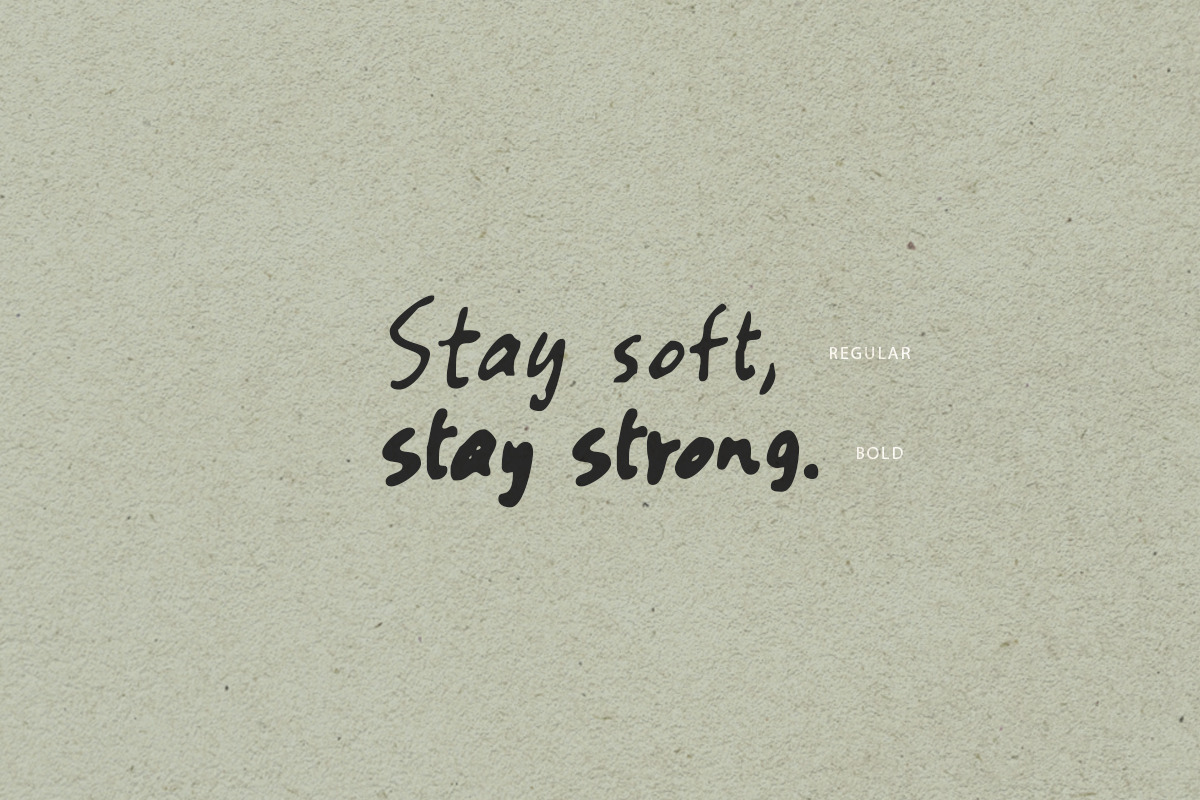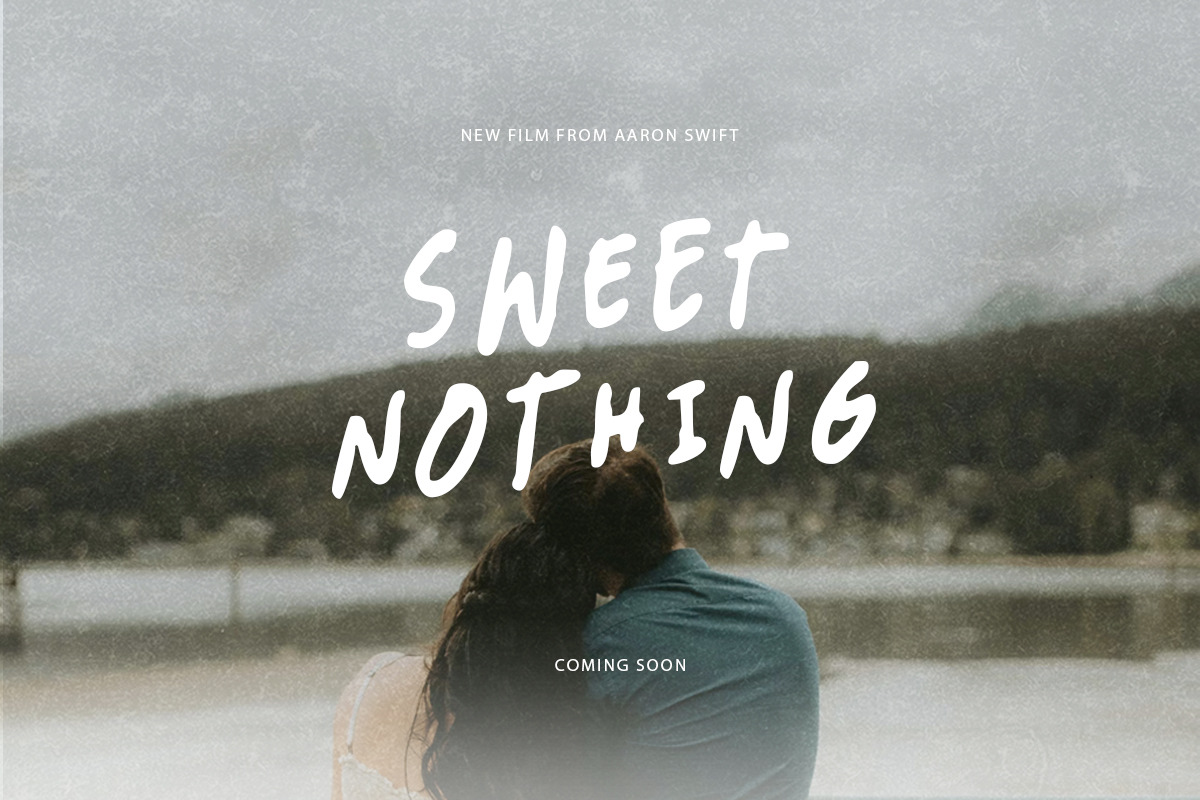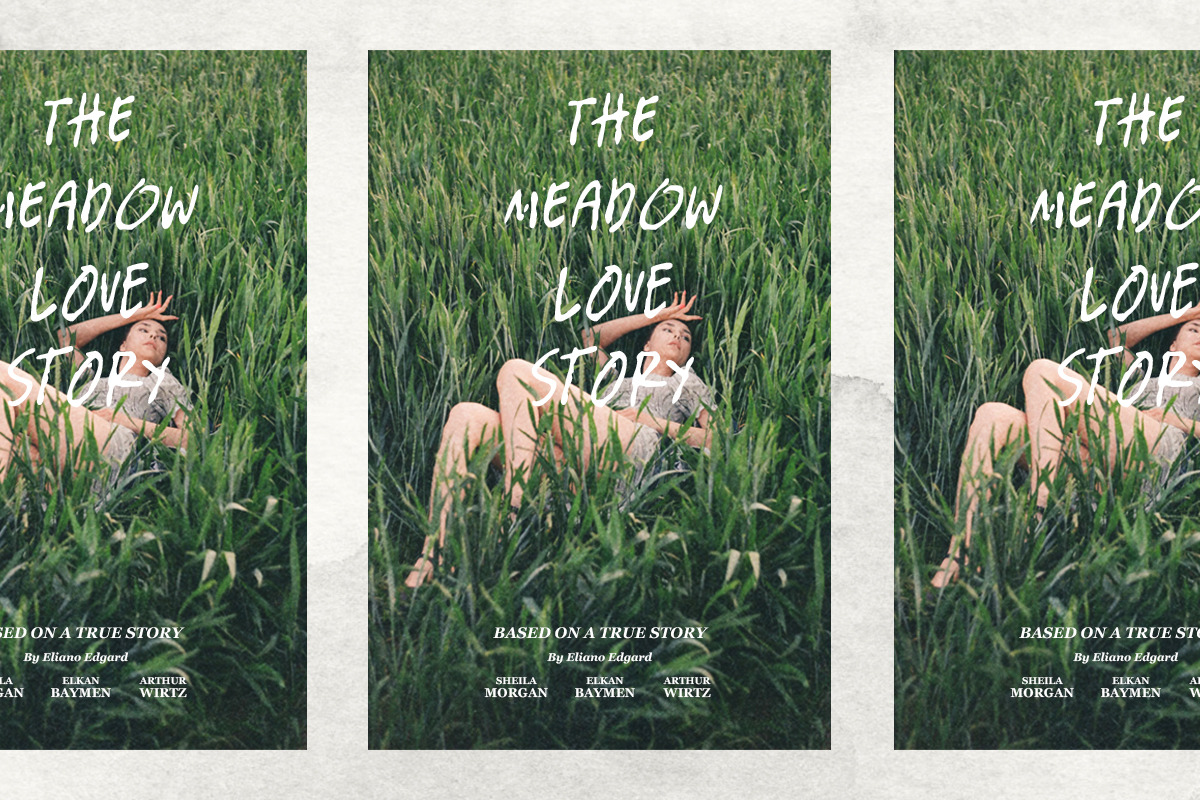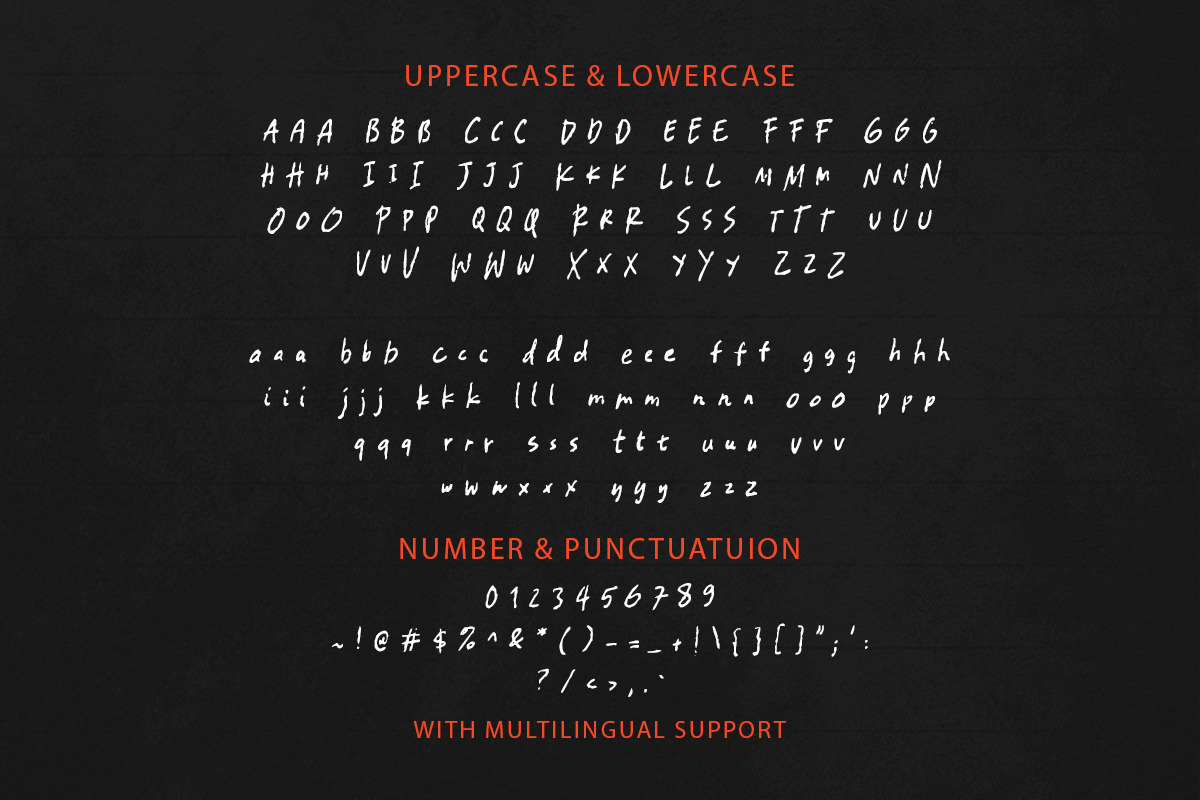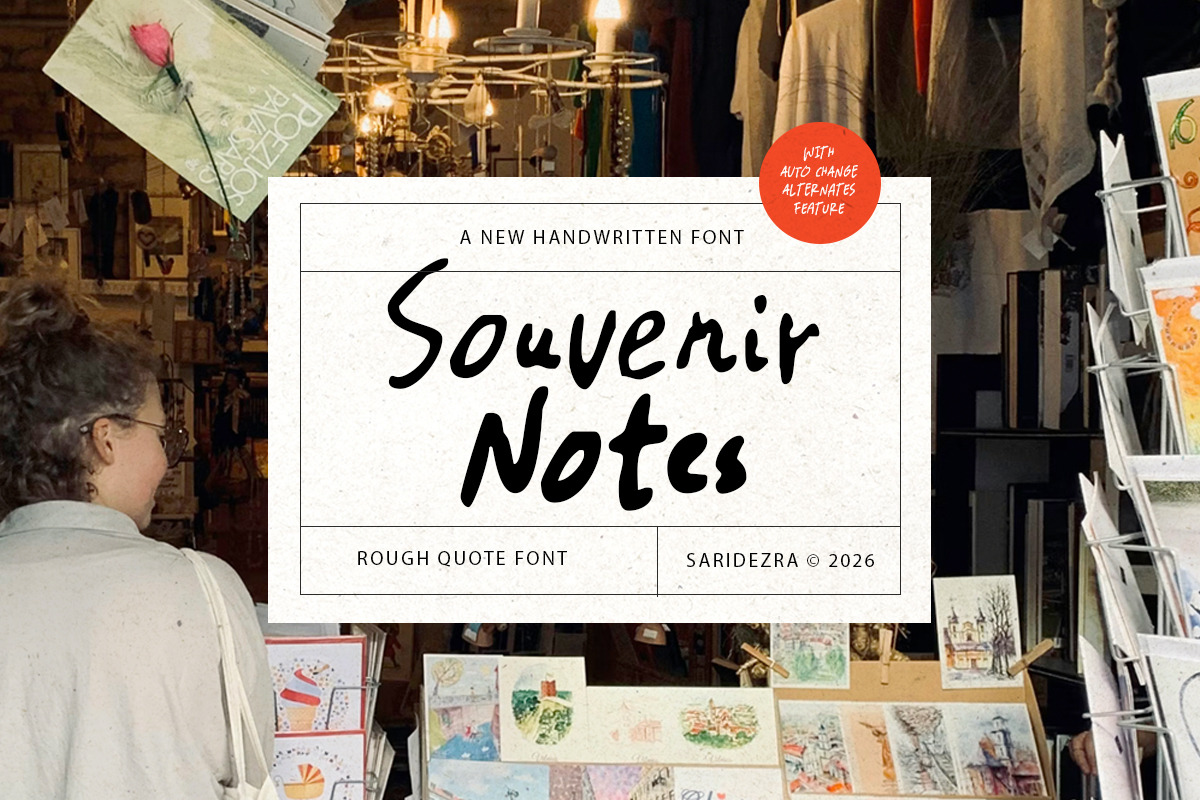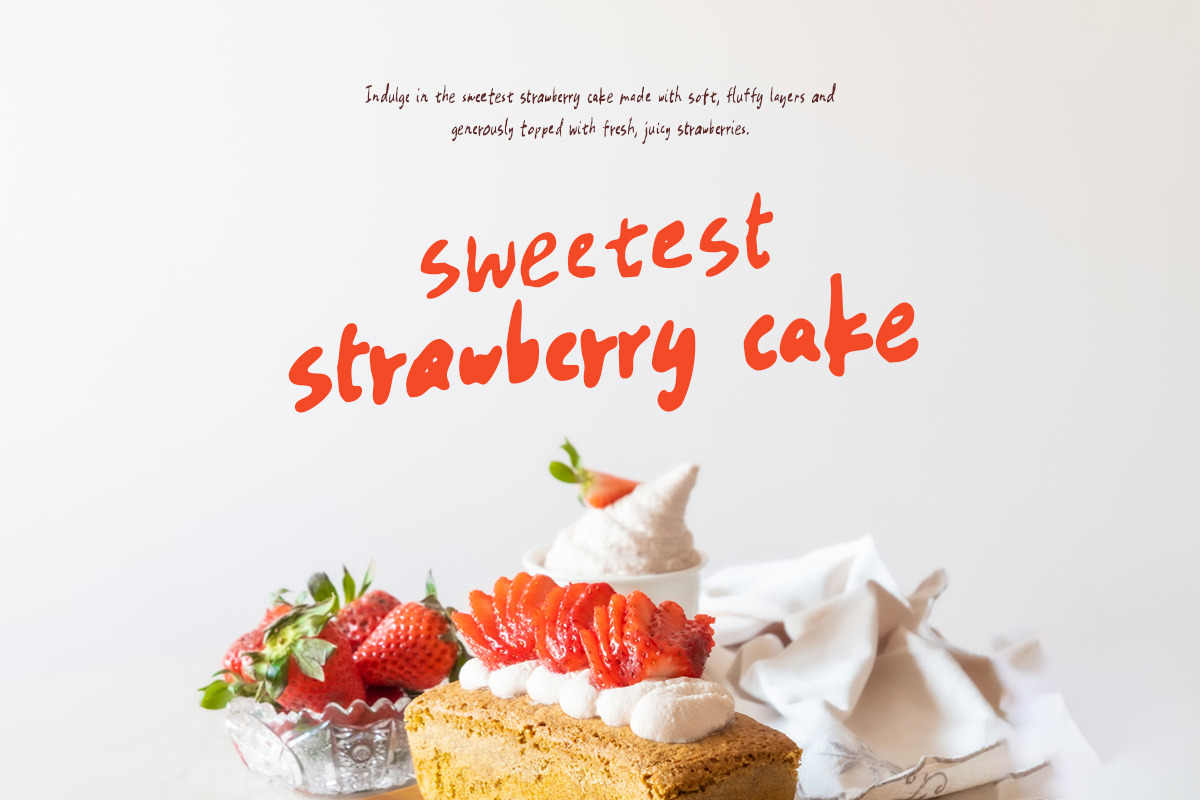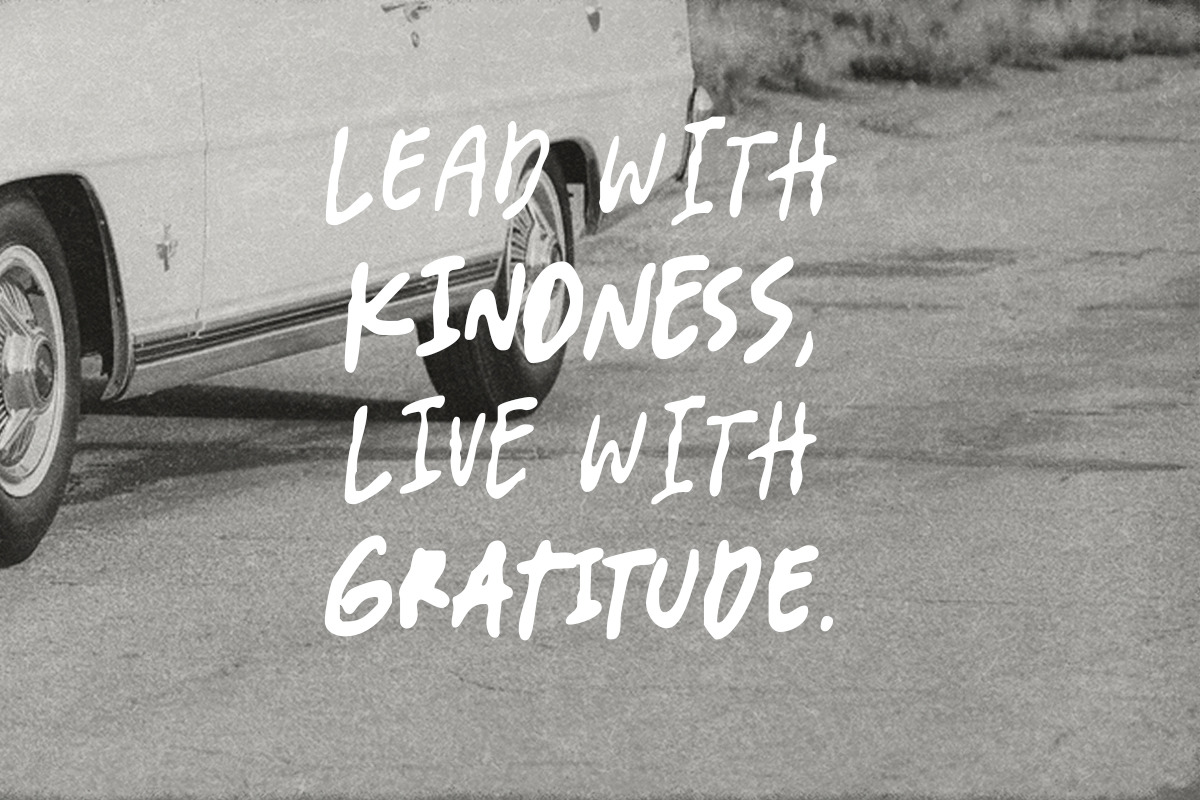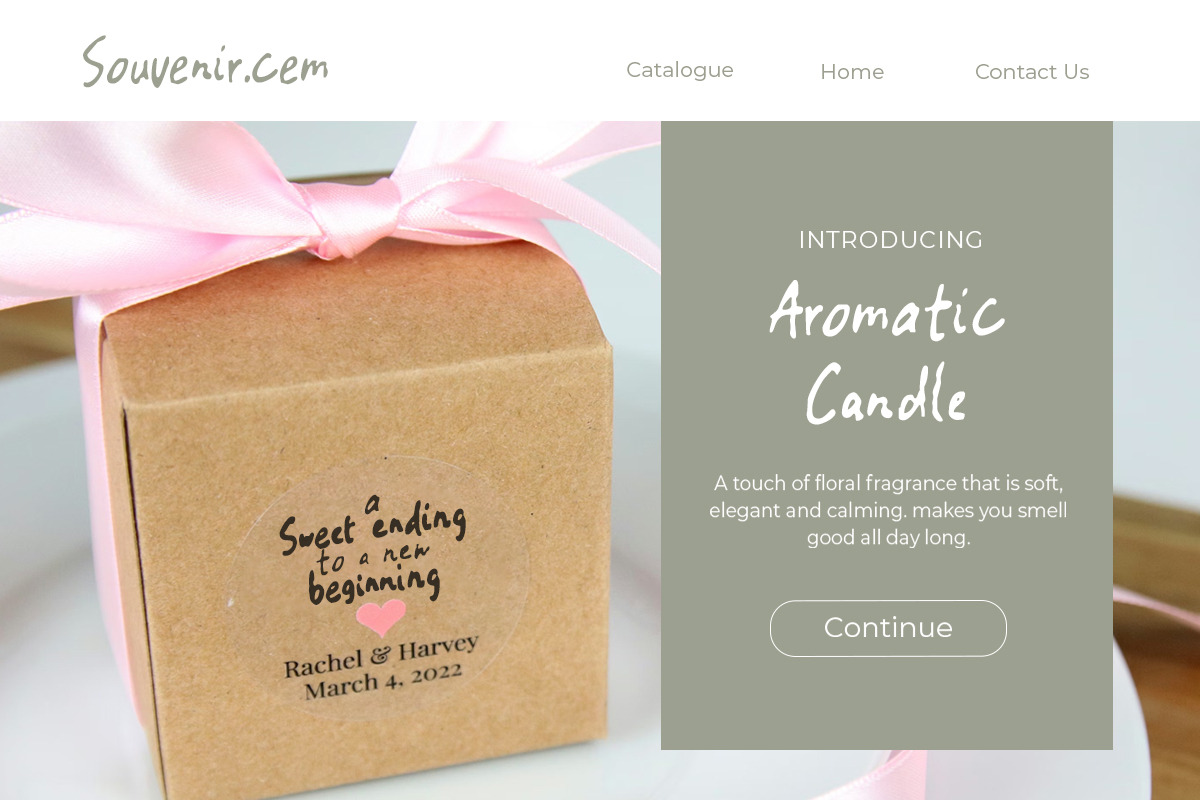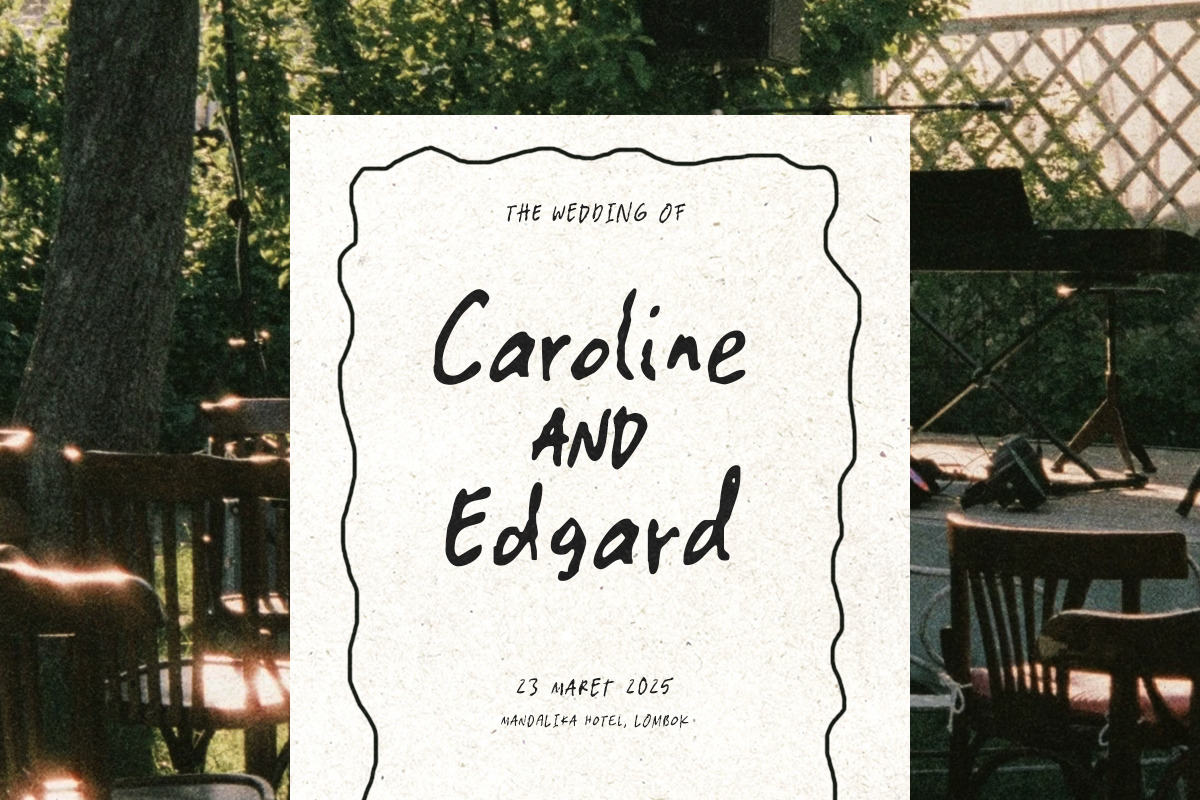
Souvenir Notes - Quote Font
Souvenir Notes is a quote handwritten font with regular and bold style. With two alternates each character that automatically change, you can make your quote or design looks more organic and naturally handwritten. You can use this font for any purposes such as quote, branding, notes, or any kids product. With rough yet soft shape, this font will bring human touch to your design. Souvenir Notes also support multi language.